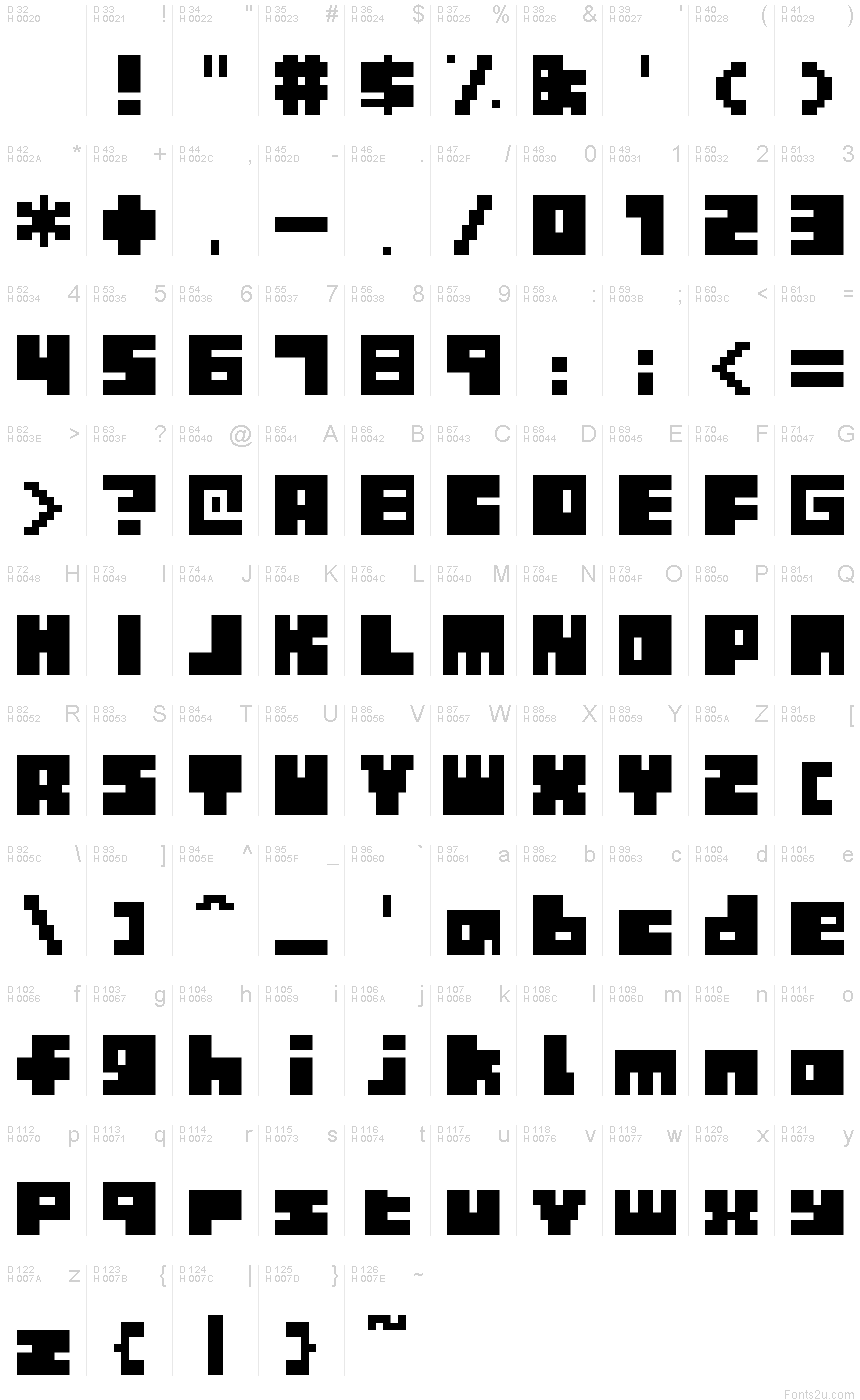
Tiny Box BlackBitA8
Tiny Box Black Bit A8, a free bitmap font by Kaaya, leans hard into early screen-era pixel lettering. The letters are built from blunt square blocks with tall, narrow proportions and clipped corners, giving the font a stripped-down, game-interface feel that stays crisp and slightly severe.
It fits naturally in retro game graphics, software mockups, zine mastheads, poster captions, and compact title cards where that low-resolution edge is part of the message. As a free font, it also works for short UI labels, glitchy branding, and small cover lines, because the rigid grid and tight vertical rhythm keep the look focused and unmistakably digital.